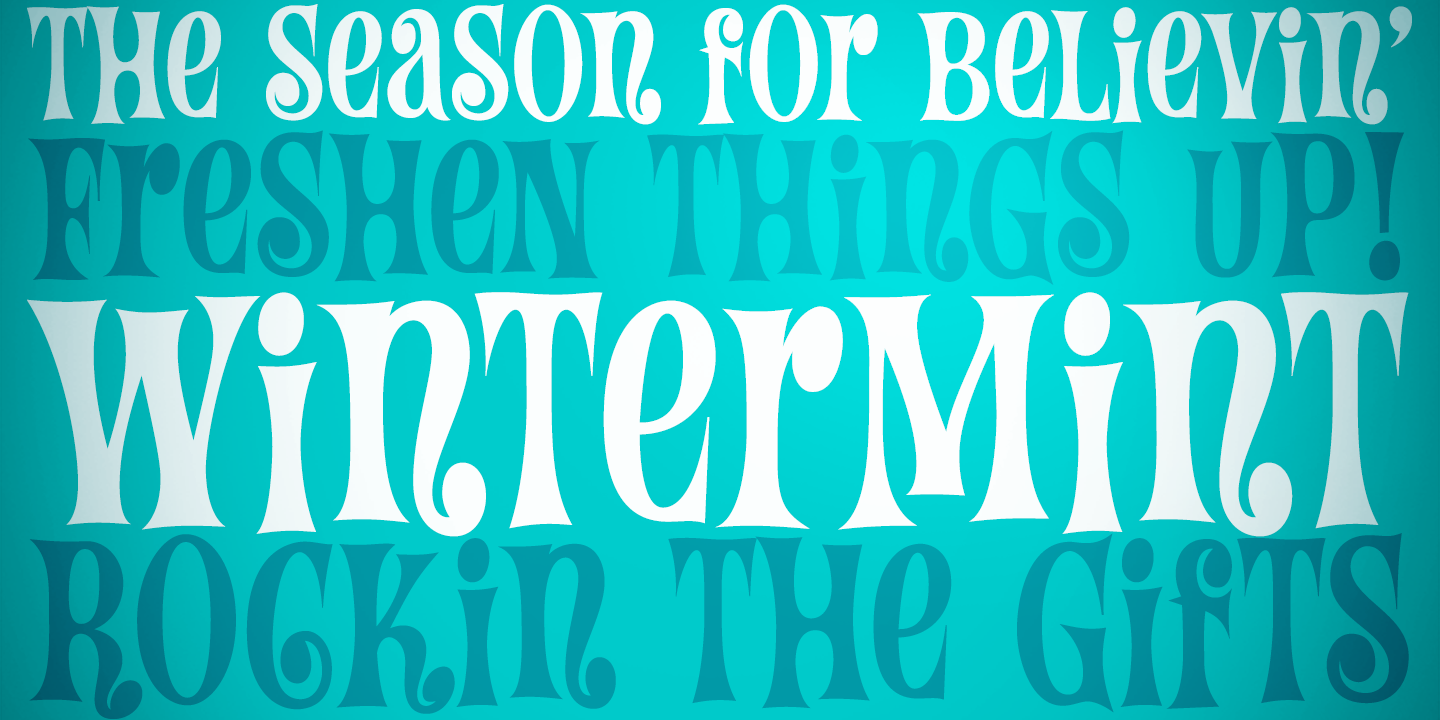
The Wintermint Font is perfect for holiday greeting cards, winter sports branding, ski resort marketing, ice cream parlor logos, frozen yogurt shop signage, winter wedding invitations, holiday gift packaging, seasonal event posters, and frost-themed product branding.
What makes the Wintermint Font so exciting is its refreshing seasonal charm that instantly evokes the crisp beauty and invigorating freshness of winter wonderlands. This delightful typeface embodies the cool elegance and sparkling vitality that defines the winter season, creating an immediate sense of seasonal magic and refreshing sophistication. The font's winter character communicates the pure freshness and seasonal authenticity that cold-weather businesses need to attract customers seeking genuine winter experiences and the invigorating appeal of seasonal specialties and winter lifestyle products.
The Wintermint Font family includes Regular weight featuring complete uppercase and lowercase character sets, comprehensive numerical collections, essential punctuation marks, and winter-themed symbols that maintain the seasonal aesthetic throughout your cold-weather and winter-focused design projects.
Winter businesses and seasonal service providers consistently choose Wintermint Font Free Download for projects that require authentic seasonal appeal and refreshing winter communication. This exceptional typeface excels in environments where establishing connection to winter traditions and seasonal sophistication is crucial for attracting customers who value authentic winter experiences and seasonal lifestyle products. The font's fresh character helps communicate the quality and seasonal authenticity that winter enthusiasts expect from premium cold-weather businesses and seasonal specialty providers.
The distinctive qualities of Wintermint Font reflect the magical traditions of winter celebrations where seasonal beauty, fresh experiences, and winter wonder create memorable moments and refreshing escapes from everyday routine. Each character demonstrates the crisp clarity and sparkling energy that characterizes successful winter businesses and seasonal entertainment venues. The font's proportions and spacing create perfect balance between winter sophistication and seasonal accessibility that modern cold-weather enterprises require for effective seasonal marketing and customer engagement.
Contemporary winter enterprises appreciate how Wintermint Font communicates seasonal authenticity and refreshing quality. Whether designing materials for winter resort destinations, creating branding for seasonal food and beverage establishments, or developing marketing for holiday celebration services, this font delivers the genuine character that distinguishes authentic winter experiences from generic seasonal offerings. The typeface works exceptionally well for businesses emphasizing seasonal craftsmanship, winter traditions, and the refreshing appeal of cold-weather lifestyle and seasonal specialties.
The versatility of Wintermint Font extends across multiple seasonal applications and winter marketing initiatives. Ice skating rinks utilize its fresh character for promotional materials and seasonal event advertising. Holiday boutiques choose it to communicate the special magic and seasonal elegance of their winter collections. Winter sports equipment retailers rely on its appealing appearance to market authentic winter gear and cold-weather adventure equipment to seasonal sports enthusiasts.
Digital winter platforms benefit from Wintermint Font's optimized performance across various seasonal applications and winter communication channels. The font maintains its fresh character whether displayed on winter websites, mobile seasonal apps, or digital holiday marketing campaigns. This technical reliability ensures consistent brand presentation across all winter communication platforms and seasonal engagement scenarios.
The emotional appeal of Wintermint Font resonates with audiences who appreciate the magic of winter seasons and seek refreshing experiences during cold-weather months. The typeface serves as a visual celebration of winter beauty and seasonal freshness that helps winter businesses build passionate relationships with customers who value authentic seasonal experiences and the invigorating appeal of winter lifestyle products. This connection to seasonal magic and winter freshness makes it invaluable for establishing memorable winter brand identities.
Winter marketing specialists and seasonal design professionals recognize Wintermint Font as an essential tool for authentic seasonal branding. The font captures the essence of winter elegance while making seasonal sophistication accessible to contemporary winter businesses who want to communicate their commitment to authentic winter experiences, seasonal quality, and the refreshing beauty of cold-weather lifestyle in today's competitive seasonal marketplace.